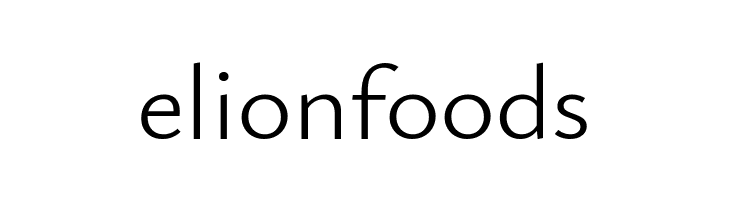
A modern sans-serif font with clean lines and balanced spacing.
A bold, modern sans-serif font with clean lines and excellent readability.
A bold, italicized modern sans-serif font with sleek, dynamic characters.
A bold, italic sans-serif font with strong, dynamic strokes.
A sleek, modern typeface with clean lines and a minimalistic design.
An elegant, extra light italic font with sleek, elongated characters.
A sleek, italicized sans-serif font with smooth curves and modern style.
A modern, light sans-serif font with clean lines and balanced proportions.
A sleek, light, and italicized font with a modern and minimalist style.